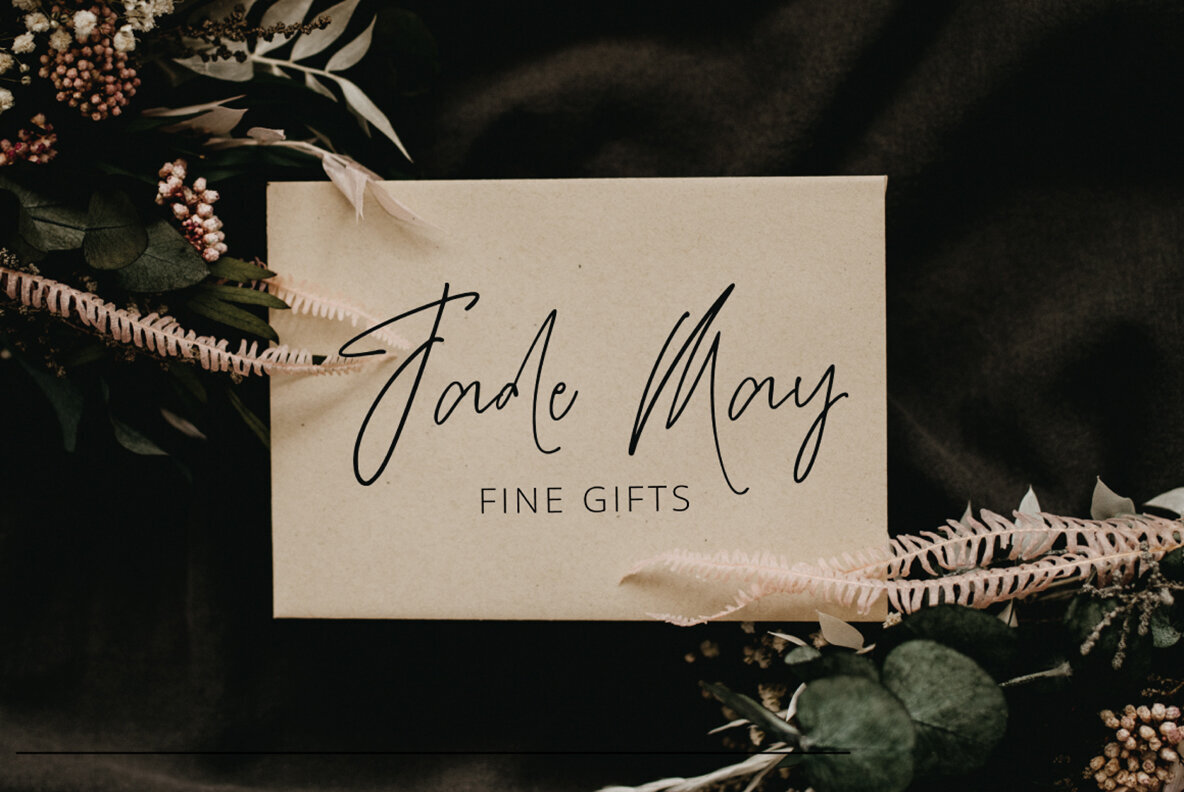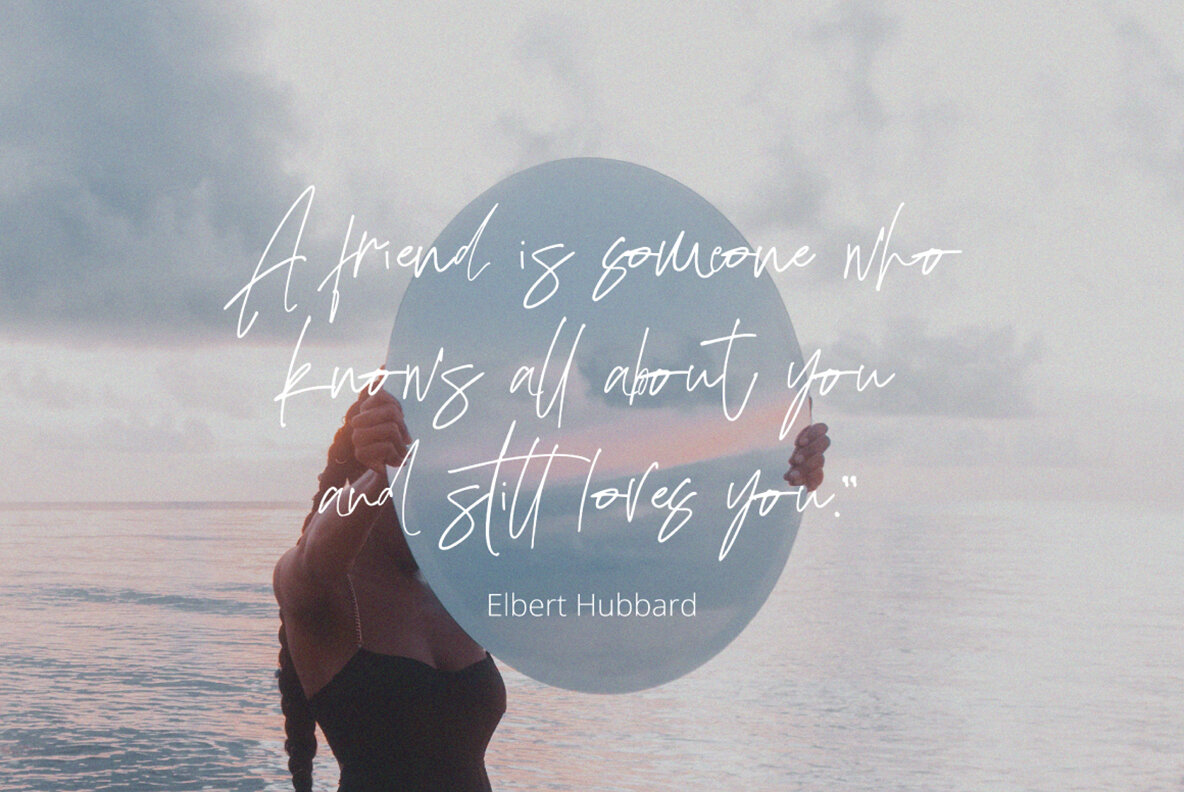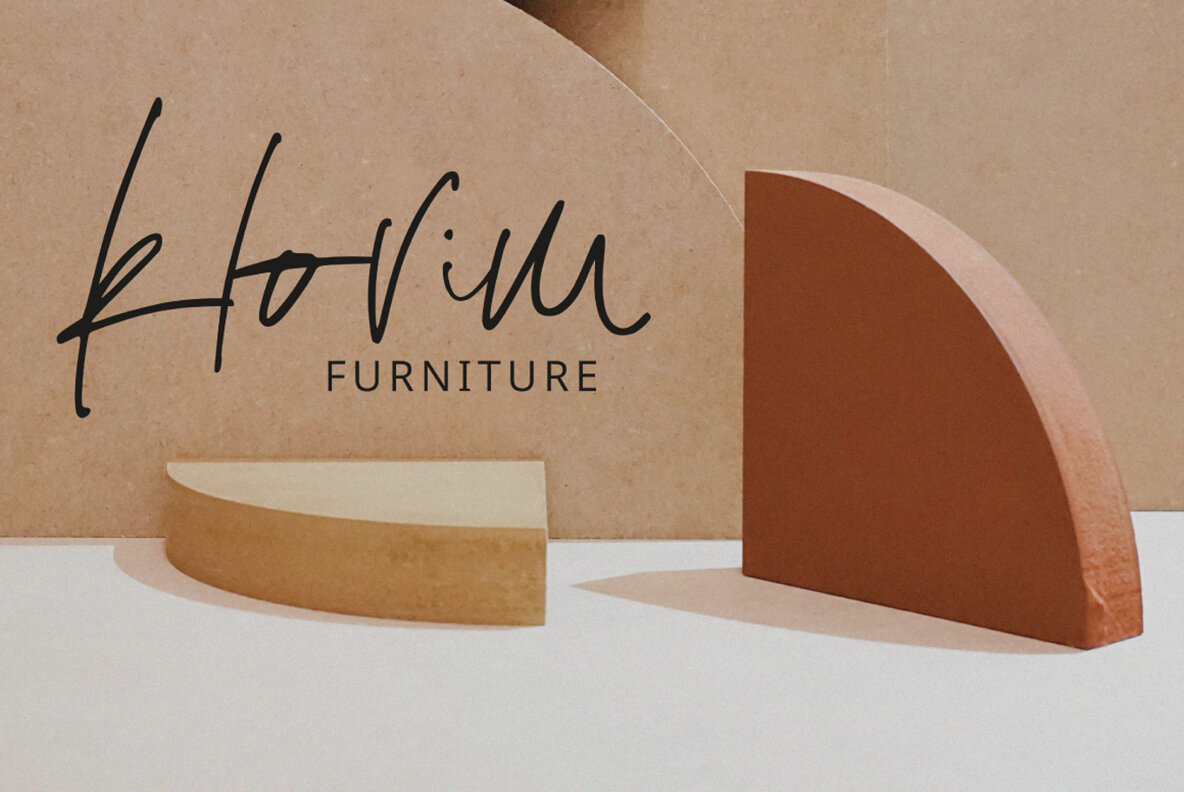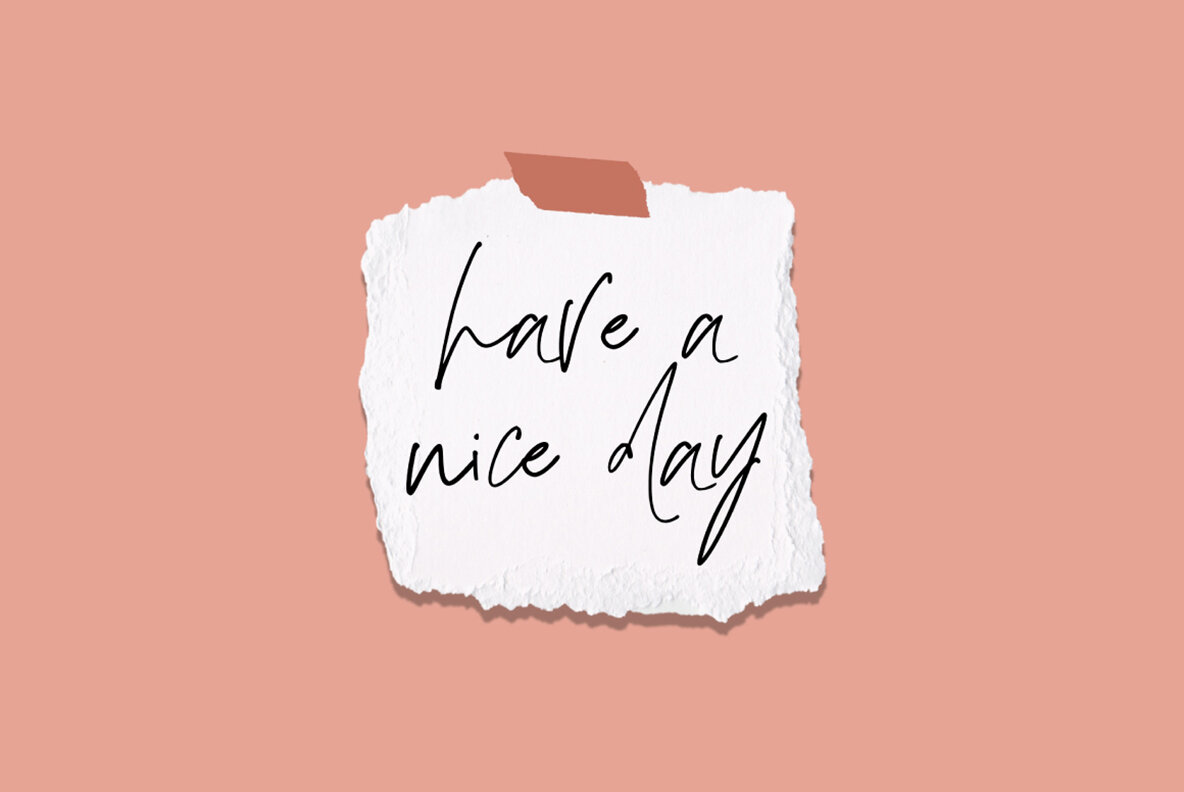
Adustine Font
Adustine Signature Regular
Adustine Signature is characterized by its handcrafted style, decorative characters, and dynamic baseline. Ideal for applications such as greeting card invitations, branding materials, business cards, quotes, and posters. This font includes over 200 glyphs, with alternative characters available through a variety of OpenType features such as Swash, Stylistic Sets, Stylistic Alternates, and Ligatures. These features can be accessed using programs like Adobe Illustrator, Adobe InDesign, Adobe Photoshop, Corel Draw, and Microsoft Word. Adustine Signature also includes PUA Unicode, allowing easy access to alternate characters for craftsmen and designers.Adustine: Elegant Signature Font with Unique Style
Extensive Glyph Collection
Feature Highlights